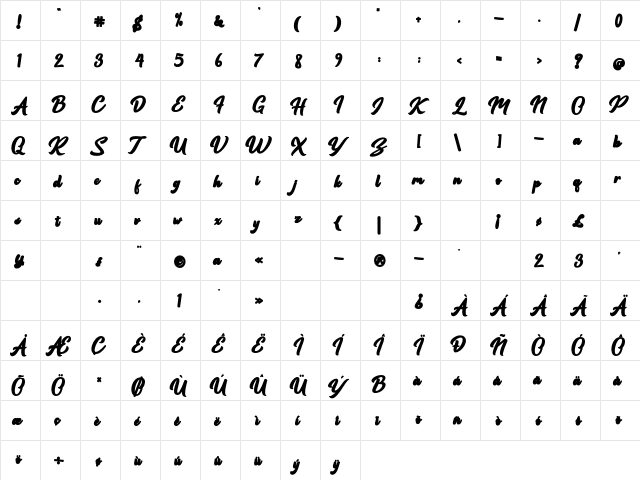
Guttawa-outline outline
Design Context for Guttawa-outline Typeface
Guttawa-outline brings ornamental detail and strong personality to headlines and identities, where visual impact matters more than quiet functionality.
Font Pairing: Pair with a clean neutral sans-serif for body copy to let Guttawa-outline's character lead without overwhelming the composition.
Pro Tip: Treat Guttawa-outline as the centrepiece of your typographic hierarchy. One strong heading set in a decorative face can carry an entire layout.